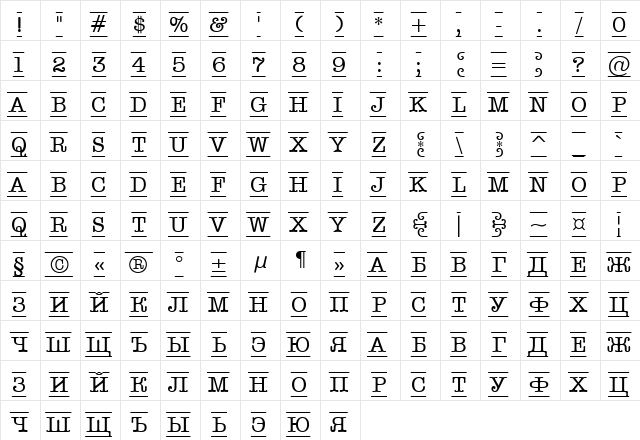
a_OldTyperDcFr Regular Font Preview
a_OldTyperDcFr Regular
Design Context for a_OldTyperDcFr Typeface
a_OldTyperDcFr takes a measured approach to typography — its balanced proportions and neutral character make it a reliable workhorse for both digital and print work.